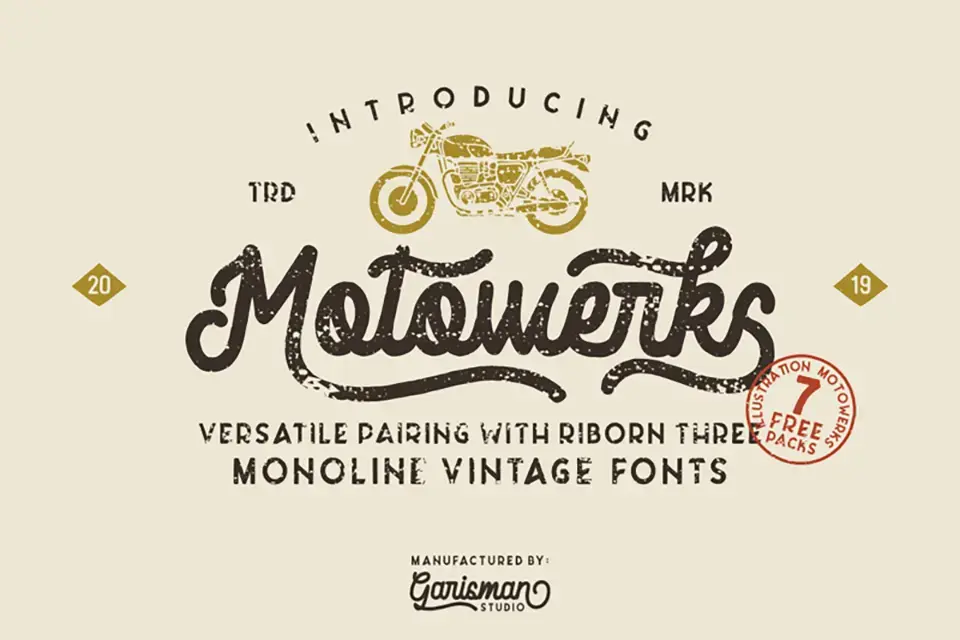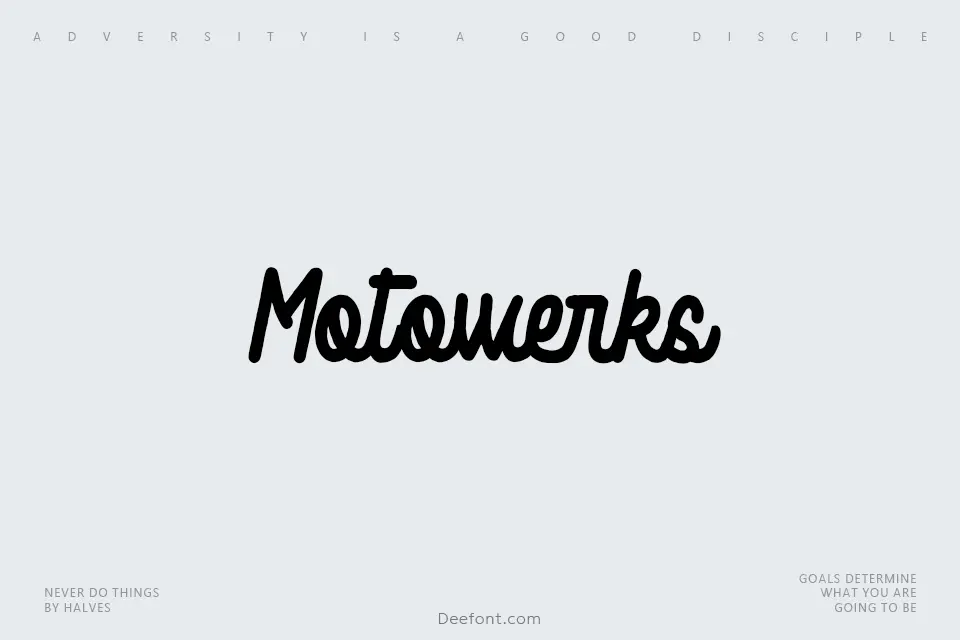
Motowerks Font
Motowerks is a dynamic vintage script font by Garisman Studio that embodies the gritty spirit of motorcycle culture. Featuring a fluid monoline structure and retro flair, this handwritten typeface excels in automotive branding, badge designs, and apparel. Its nostalgic, old-school aesthetic makes it a perfect choice for bold logos, posters, and creative projects requiring a rugged, handmade touch.
Designed by:Garisman StudioWebsite